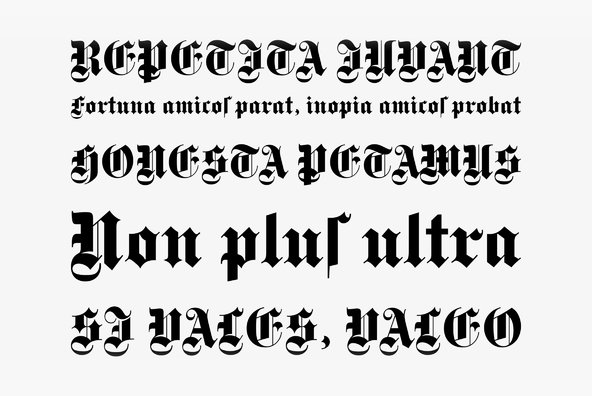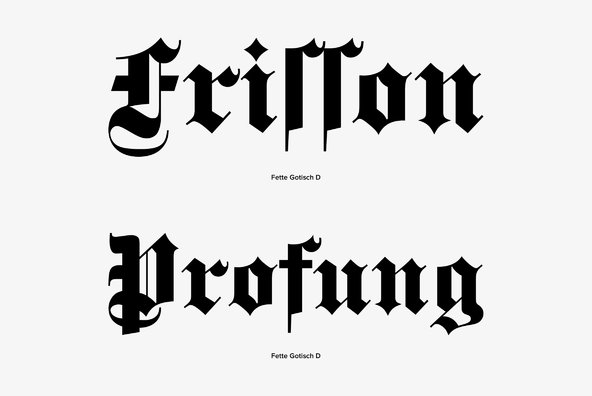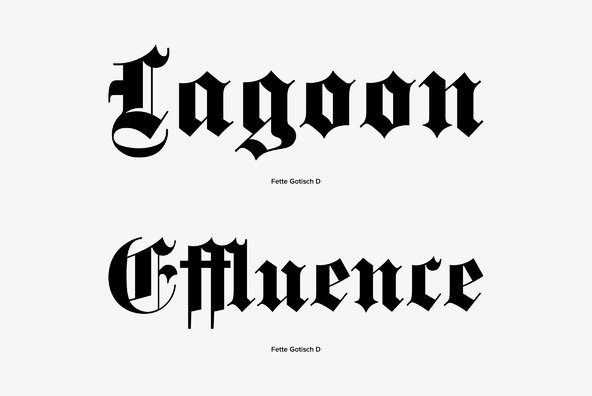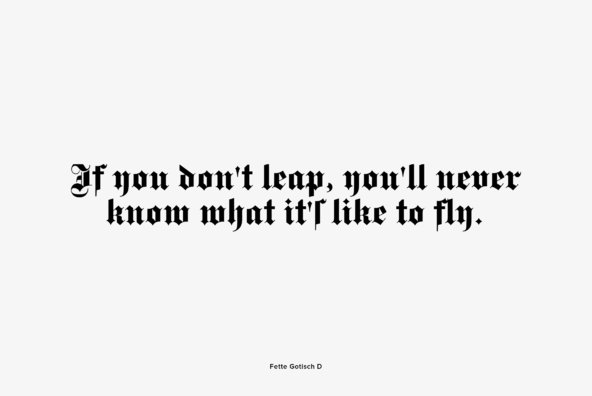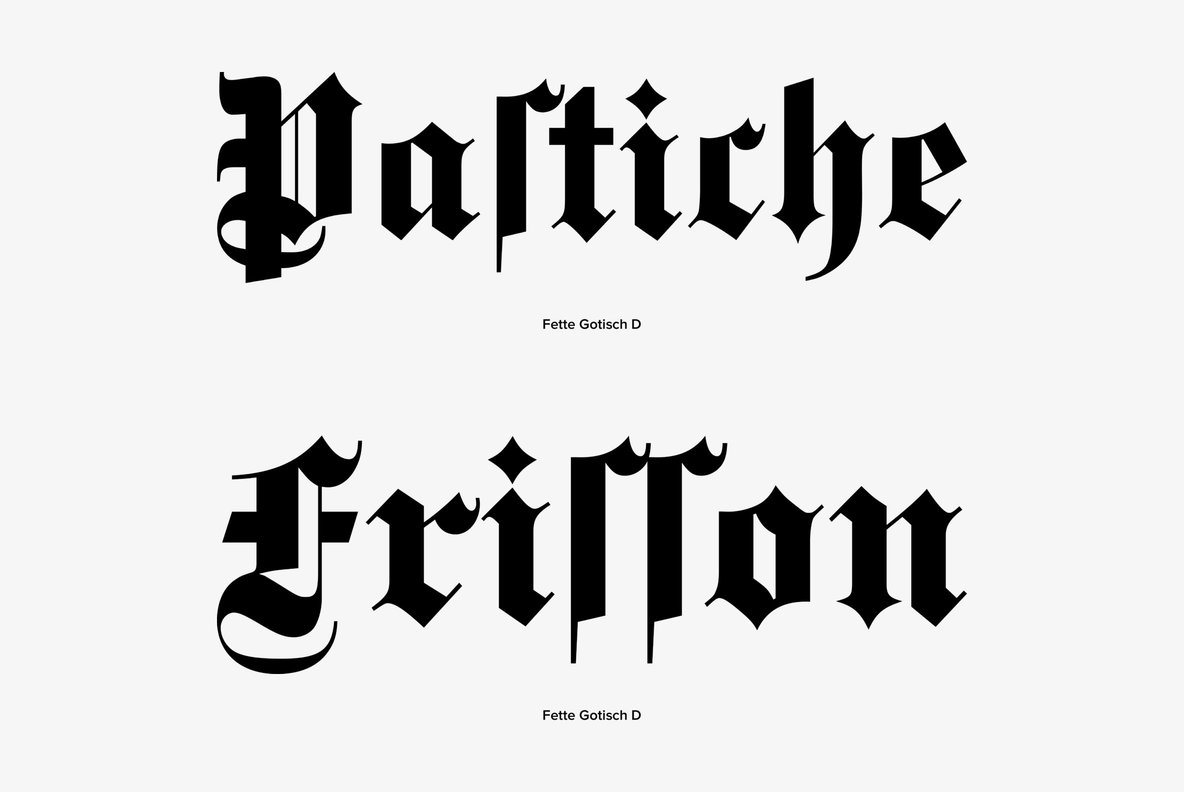
Fette Gotisch
Designed by Wagner Studio in 1911, Fette Gotisch is a blackletter font release by URW. Contains language support for West, East, Turkish, Baltic, and Romanian.